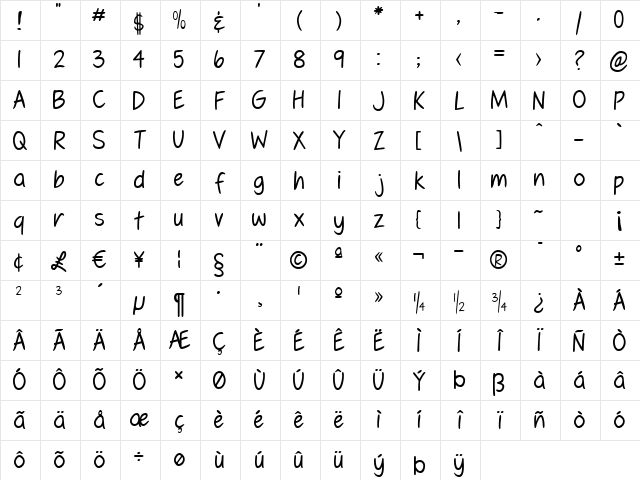
Fennario Light Free Font
Fennario Light
Fennario Family
Design Context for Fennario
Fennario is a composed and adaptable typeface that performs quietly and consistently across a wide range of design contexts. Its slender proportions lend an understated elegance to any composition.
Pro Tip: Use Fennario in both headline and body roles to test its range before committing to a single application.